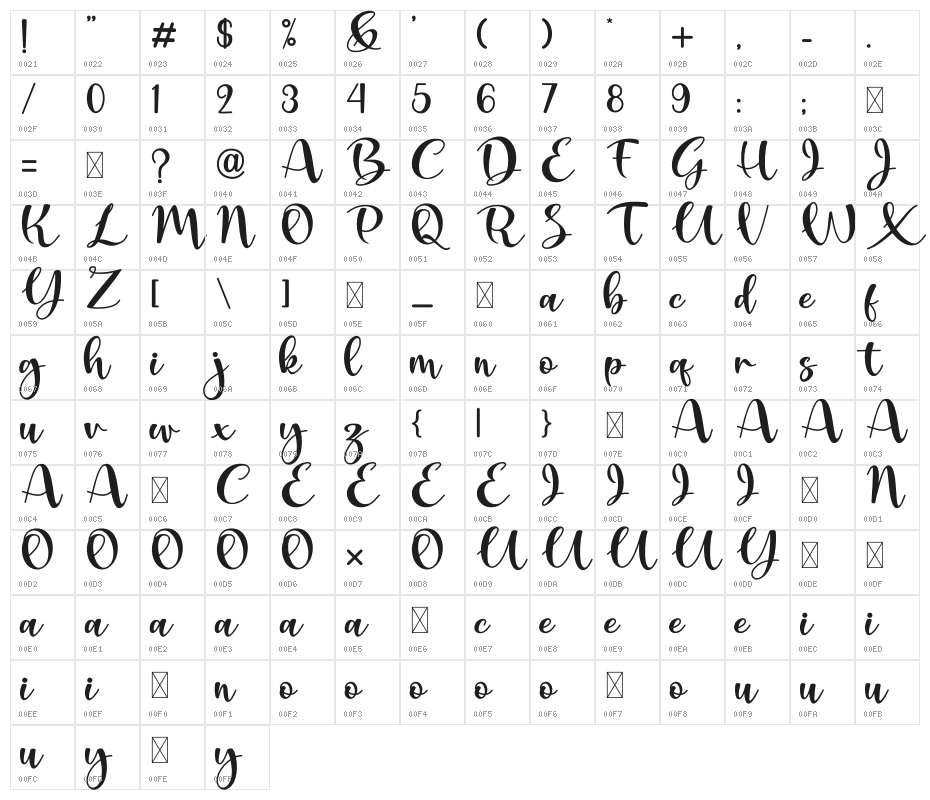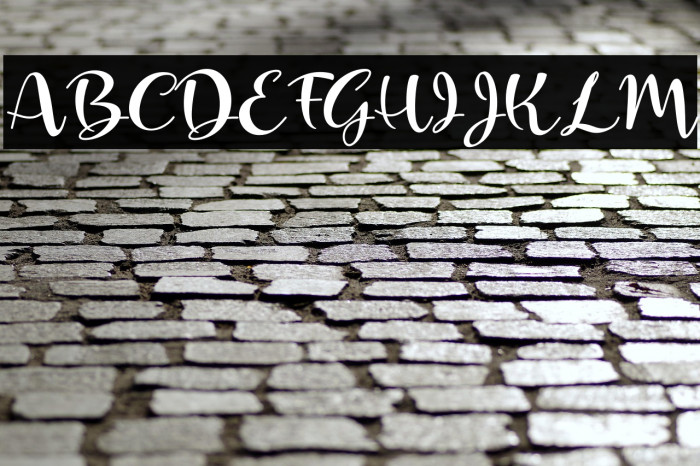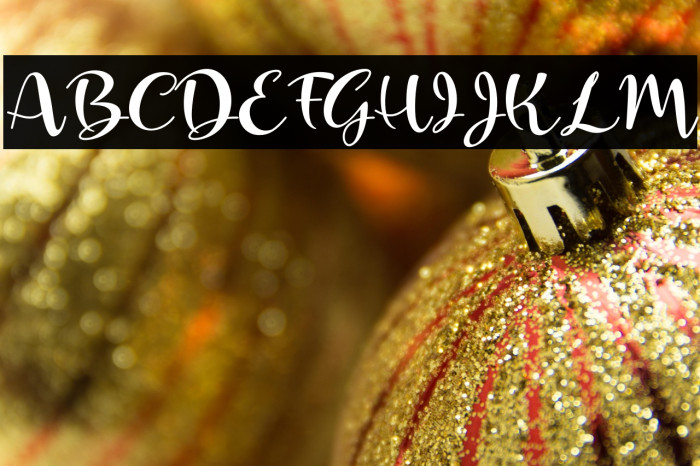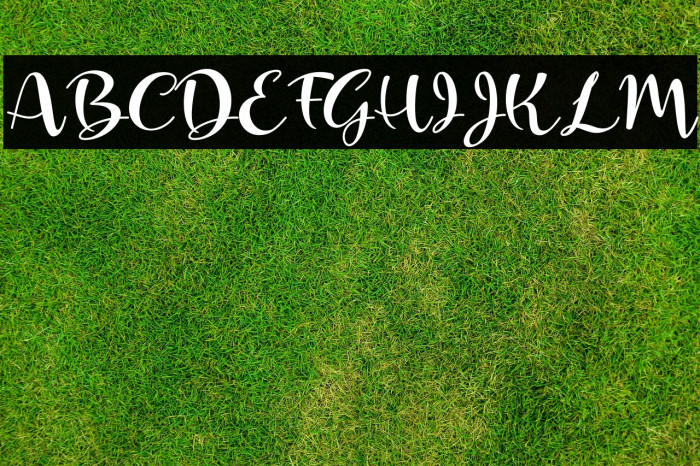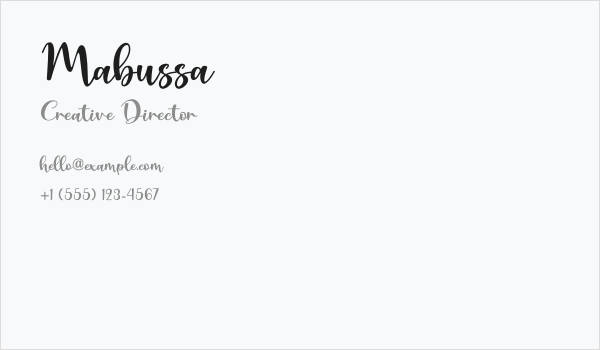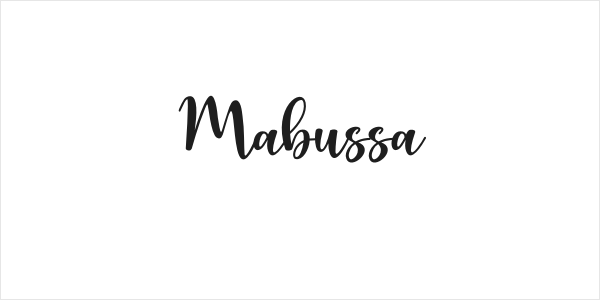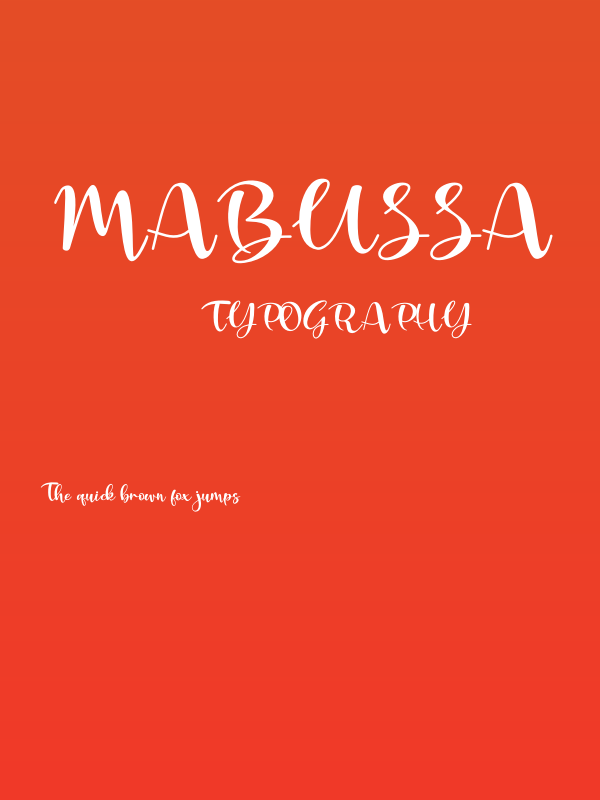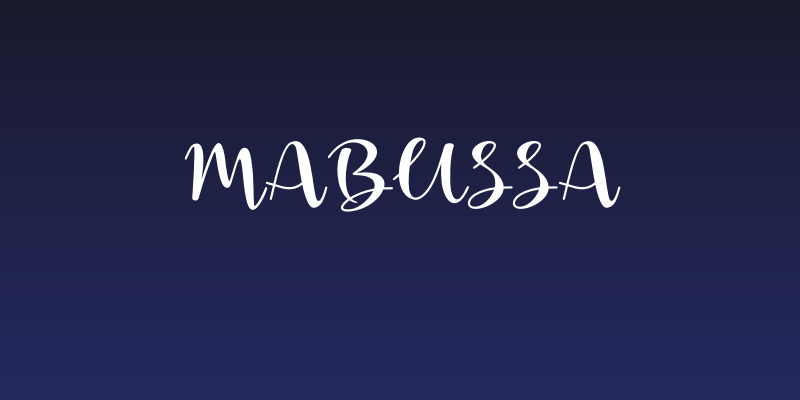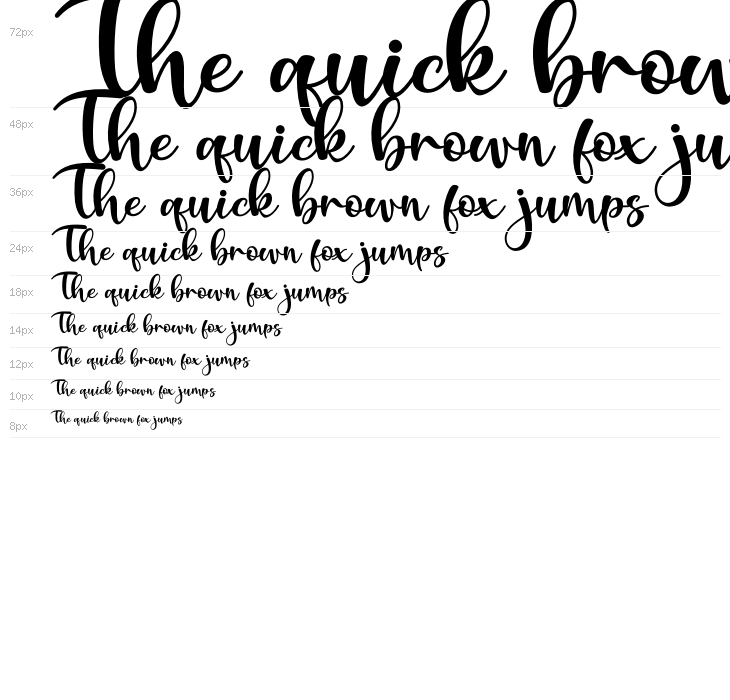
Mabussa Font
Mabussa Description
This font features a lively and flowing script style, characterized by its elegant curves and smooth transitions. The uppercase letters are bold and expressive, with a slight slant that adds a dynamic feel. The lowercase letters maintain a consistent rhythm, enhancing readability while preserving the font's artistic flair. Numbers are clear and distinct, matching the overall aesthetic. Special characters are thoughtfully designed to complement the script's fluidity. This font exudes a sense of creativity and sophistication, making it suitable for a variety of design projects.
| Use Case | Logos, Headlines, Invitations |
| Proposed Projects | Ideal for wedding invitations, branding, greeting cards, and artistic projects. |